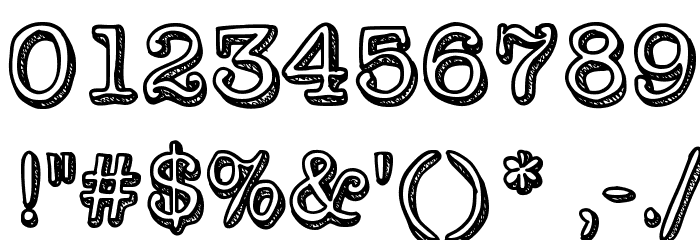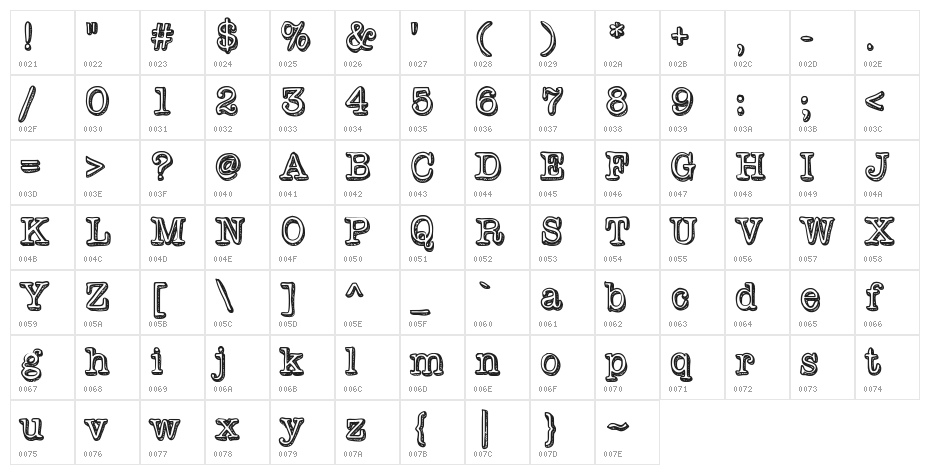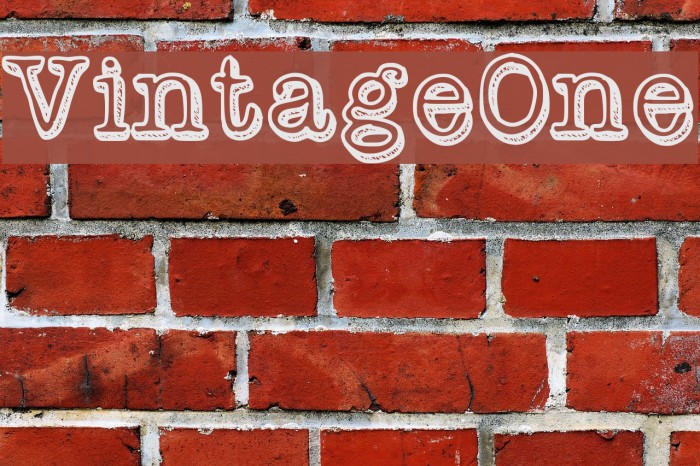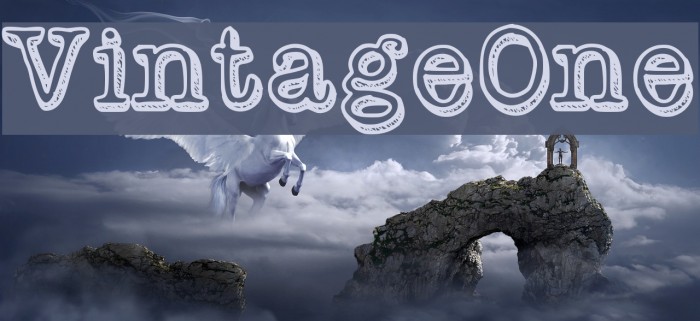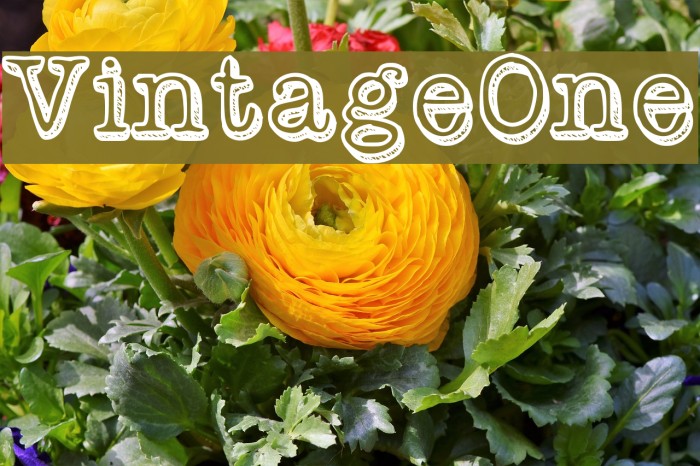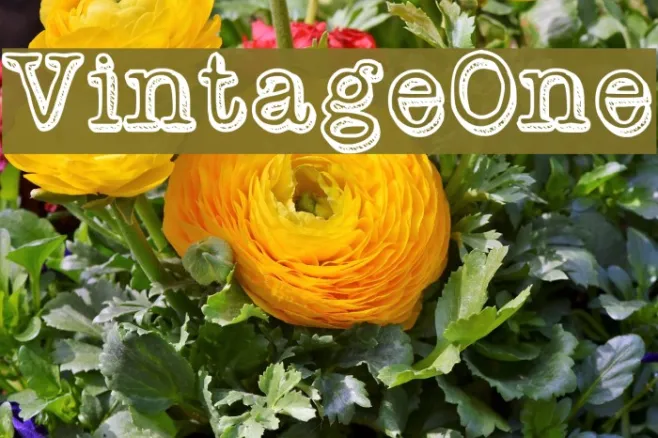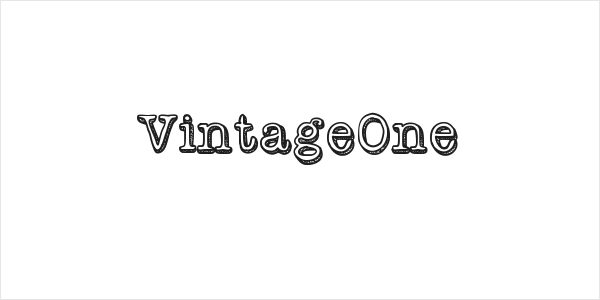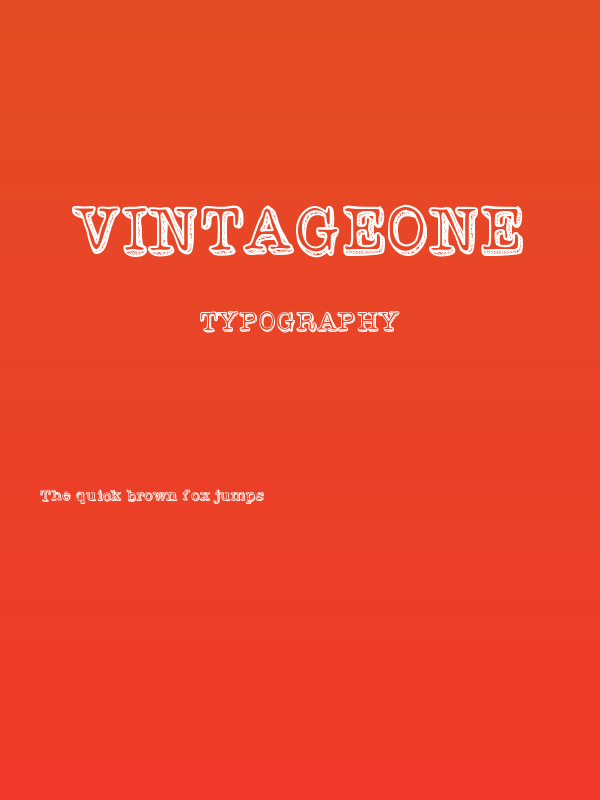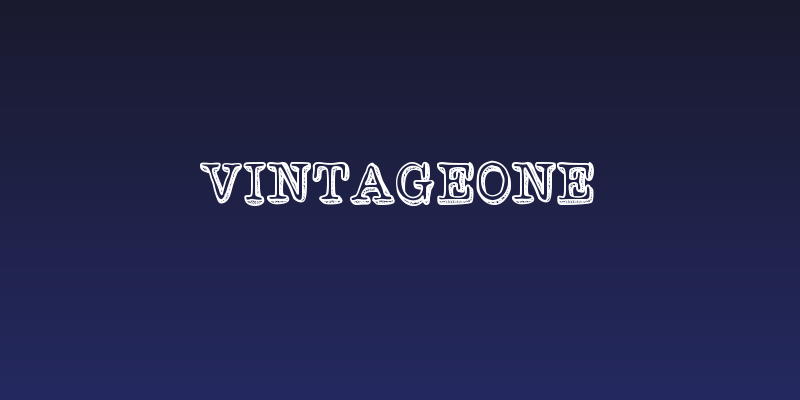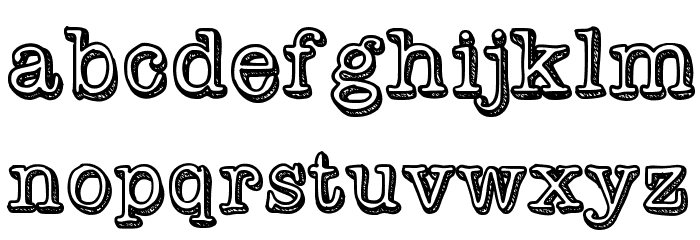
VintageOne Font
This font features a bold, decorative style with a vintage flair. Each character is outlined with a thick, textured border that gives it a three-dimensional appearance. The letters are slightly rounded, adding a friendly and approachable feel. The intricate detailing within each character adds depth and complexity, making it stand out in any design. The font maintains a consistent weight throughout, ensuring readability while still offering a unique aesthetic. Its playful yet classic design makes it versatile for various creative projects.
Overall StyleVintage
Proposed ProjectsIdeal for vintage-themed posters, retro branding, creative invitations, and eye-catching headlines.